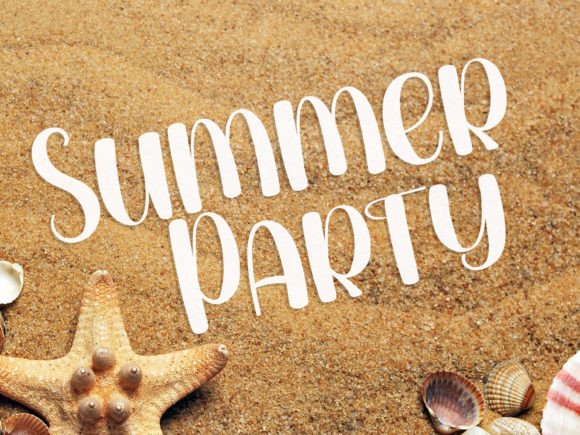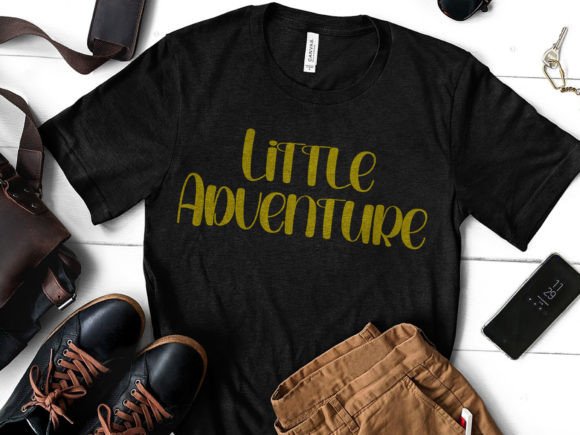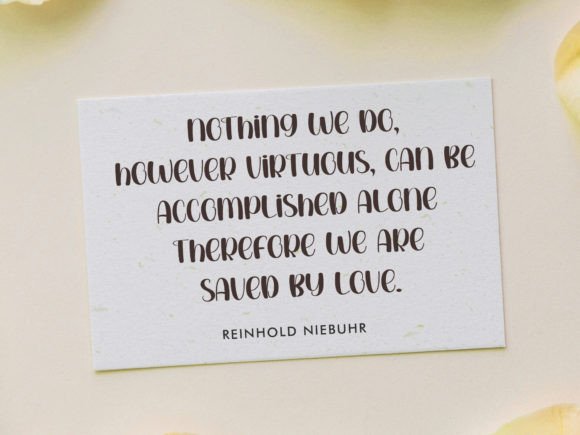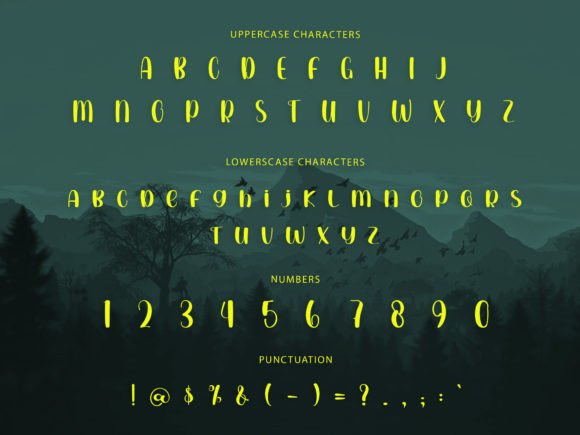
Discover the Whimsical Elegance of Giuligio Font
In the world of typography, few fonts manage to strike a balance between elegance, simplicity, and playfulness. However, Giuligio Font stands out as a remarkable exception, embodying a unique blend of whimsical charm and minimalist design. This delightful typeface is crafted to infuse a sense of fun and approachability into any project, making it an ideal choice for designers and crafters looking to add a touch of personality to their work.
The Essence of Giuligio Font
At its core, Giuligio Font is designed with a keen focus on simplicity and readability. Each character is meticulously crafted with clean lines and a straightforward approach, ensuring that the text remains clear and easy to read. Despite its minimalist design, Giuligio Font exudes a whimsical elegance that sets it apart from more conventional typefaces. This balance of simplicity and charm makes it perfect for a wide range of applications, from children’s books and playful branding to any project that requires a dash of fun and personality.
Ideal for Creative Projects
Giuligio Font’s unique characteristics make it exceptionally suited for projects aimed at a younger audience or those that require a playful and engaging tone. Children’s books, educational materials, and playful branding benefit greatly from Giuligio’s approachable and friendly vibe. Moreover, its versatility allows it to be seamlessly integrated into various creative endeavors, including:
- Children’s Books: Bring stories to life with a font that speaks to young readers.
- Playful Branding: Add a friendly and approachable tone to your brand’s messaging.
- Educational Materials: Make learning more engaging with a delightful and cute typeface.
- DIY Projects: Enhance your craft projects with a personalized and whimsical touch.
Design Features and Benefits
The design of Giuligio Font is centered around creating a delightful reading experience without compromising on clarity. Its key features include:
- Minimalist Approach: Ensures ease of reading across various platforms.
- Clean Lines: Provides a clear and uncluttered appearance.
- Whimsical Elegance: Adds a touch of charm and playfulness to the text.
- Animal-Themed Fun: Incorporates elements that bring a smile to the viewer’s face.
These features collectively contribute to Giuligio Font’s ability to enhance the visual appeal of any text, making it more engaging and enjoyable for readers.
For designers and crafters looking to make the most of Giuligio Font, consider the following tips:
- Pair with Complementary Fonts: Combine Giuligio Font with other fonts that complement its playful yet elegant style.
- Experiment with Colors: Take advantage of Giuligio’s versatility by experimenting with different colors that match your project’s theme.
- Use in Headers and Titles: Utilize Giuligio Font for headers and titles to add a whimsical touch to your designs.
- Mix with Illustrations: Seamlessly integrate Giuligio Font with illustrations or graphics to create cohesive and engaging visuals.
Giuligio Font offers a refreshing alternative to traditional typefaces, bringing a much-needed dose of whimsy and elegance to the world of design. Its unique blend of simplicity, readability, and playfulness makes it an invaluable asset for designers and crafters aiming to create engaging and delightful projects. Whether you’re working on children’s books, playful branding, or any project that requires a friendly and approachable vibe, Giuligio Font is sure to exceed your expectations. Embrace the charm of Giuligio Font and elevate your designs with a touch of whimsical elegance.